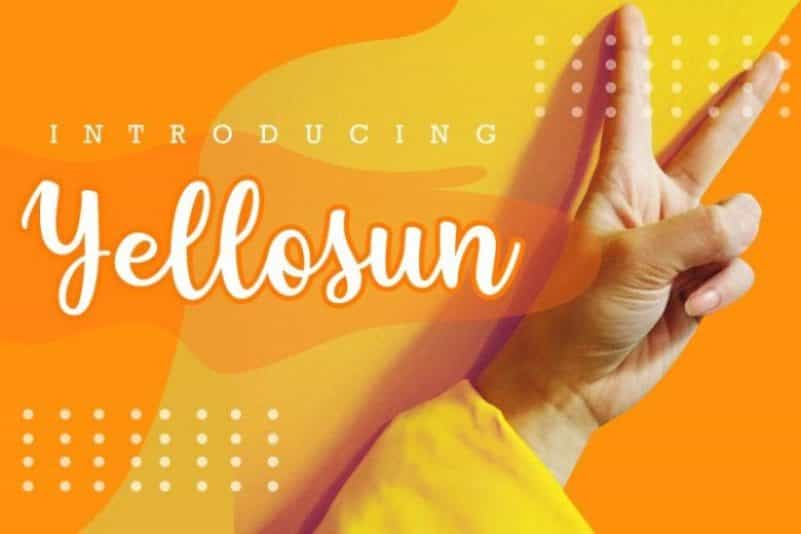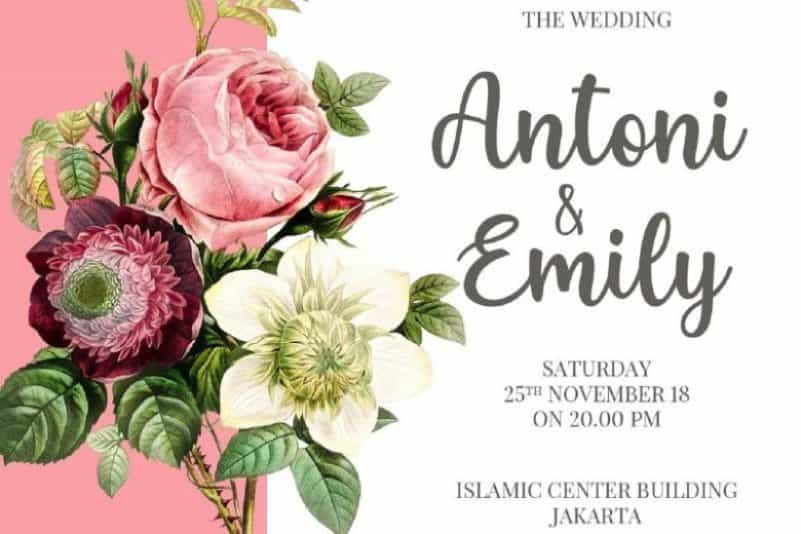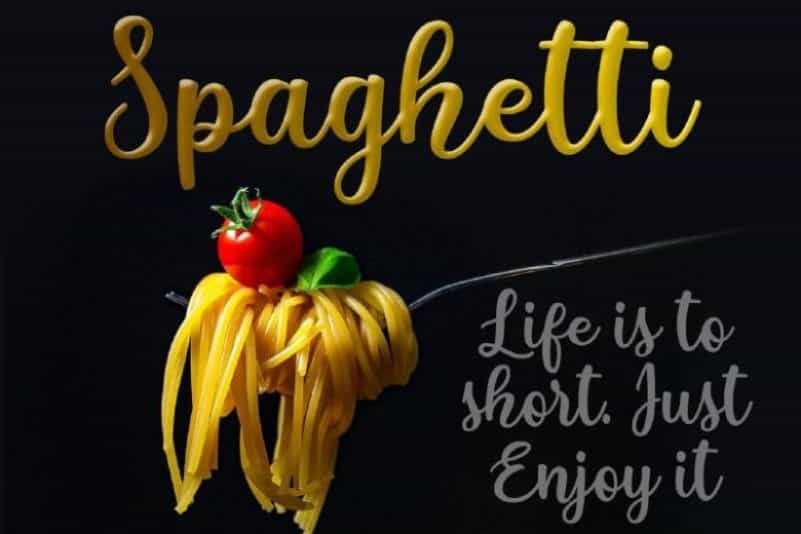
Discover Yellosun Script Font, part of the Brush Calligraphy collection—a versatile and unique font perfect for adding a personal touch to your projects. Download it for free and enjoy crafting designs with style, from invitations to social media posts. This font is available exclusively for personal use, giving you the freedom to create without limits. Unlock your creativity with Yellosun Script Font today!
Yellosun Font in created and distributed by GemesFont. It is in the idiosyncratic style. Collection of multicolored gaudy letters for inscriptions and your design. Vector illustration. Isolated on white background.